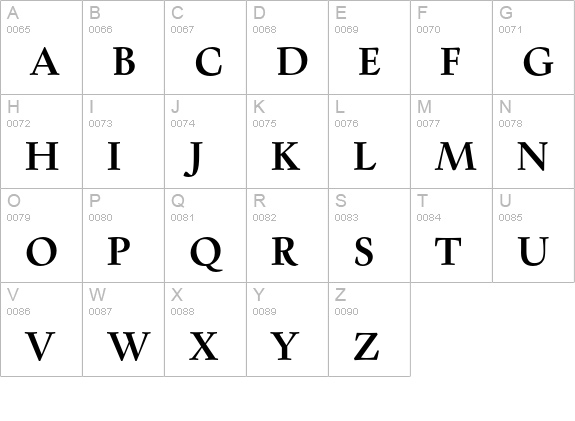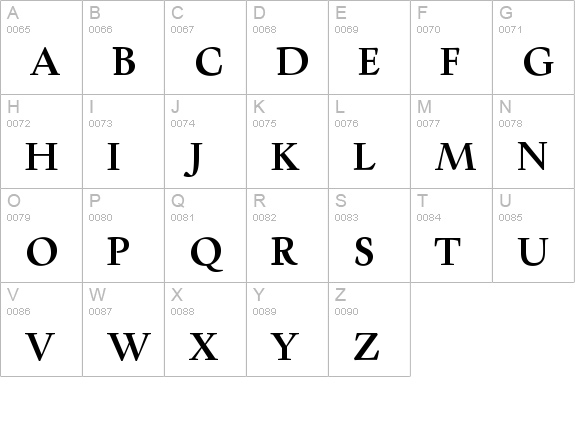
Kennedy Bold is a strong, high-contrast variant in the Kennedy typeface family \xE2\x80\x94 well suited to headlines, attention-grabbing titles, and strong calls-to-action.
Introducing Kennedy Bold, a striking and dynamic font that exudes confidence and sophistication. With its bold and commanding presence, this typeface is perfect for making a bold statement in any design project. Whether you're working on a logo, a headline, or a poster, Kennedy Bold demands attention and leaves a lasting impression. Featuring clean lines and sharp edges, Kennedy Bold is both modern and timeless. Its strong and sturdy letterforms convey a sense of power and authority, making it ideal for projects that require a strong visual impact. The bold weight of this font ensures that your message will not go unnoticed, commanding attention and delivering your words with clarity and impact. But what makes Kennedy Bold truly remarkable is that it is not only visually stunning but also freely available to download at FontsMarket.com. Yes, you read that right - this remarkable font can be yours without any cost. Whether you're a professional designer or a hobbyist, this free font allows you to elevate your designs without breaking the bank. So why wait? Head over to FontsMarket.com and download Kennedy Bold today. With its striking appearance and its availability at no cost, this font is a must-have for any designer looking to make a bold statement. Embrace the power and versatility of Kennedy Bold and take your designs to new heights.